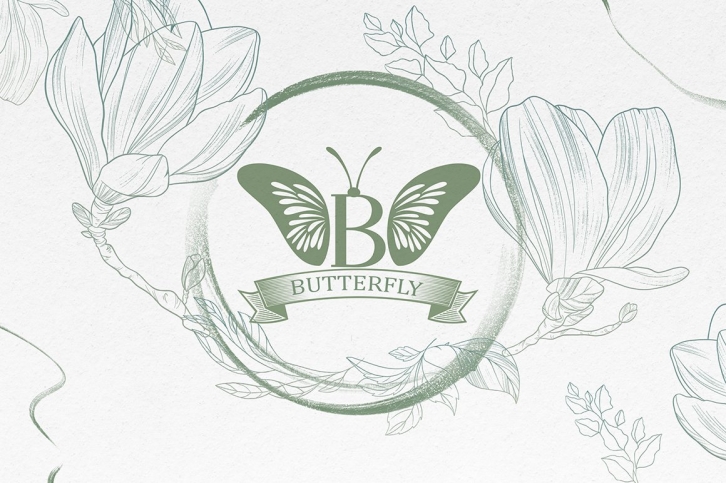
Butterfly Monogram is a trendy and unique font with an authentic style. It was designed by Typehill and it's a great choice for creative people who need such a font. It was released on April 7, 2021 and the file size is 13.35 MB. Butterfly Monogram will add an organic vibe to any design idea!